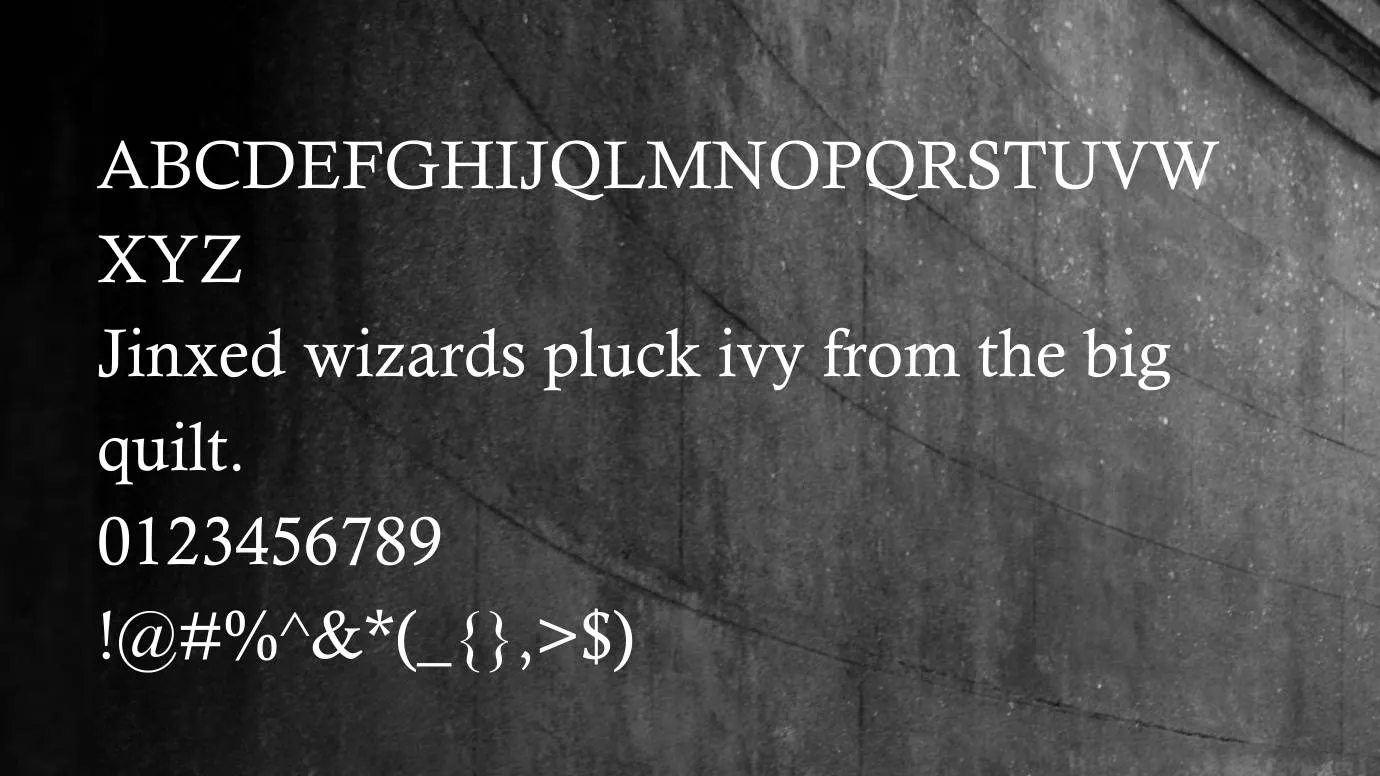
Calisto Font is a classic serif typeface with a handcrafted feel. Originally released in 1986 by the Monotype Corporation foundry, this font is ideal for creating bold and stylish display text. Featuring both Roman and italic glyphs, Calisto Font stands out with its unique serifs, terminals, and bold strokes.
Creator of Calisto Font
This is an old stylish serif typeface that was designed by British typographer Ron Carpenter. It was released in 1986 by the Monotype Corporation Foundry.
This typeface comes in 4 different styles including Calisto Regular, Calisto Bold, Calisto Bold Italic, Calisto Italic.
Who is the designer of Calisto Font?
This is an elegant Serif typeface that was designed by a British typeface designed Ron Carpenter.